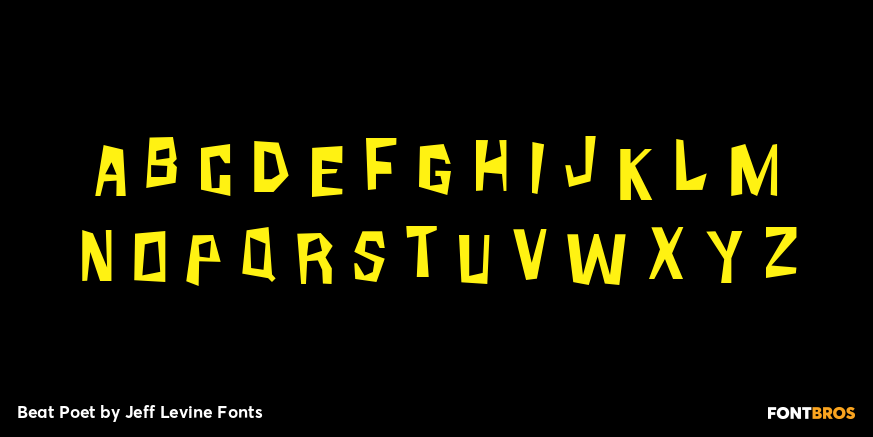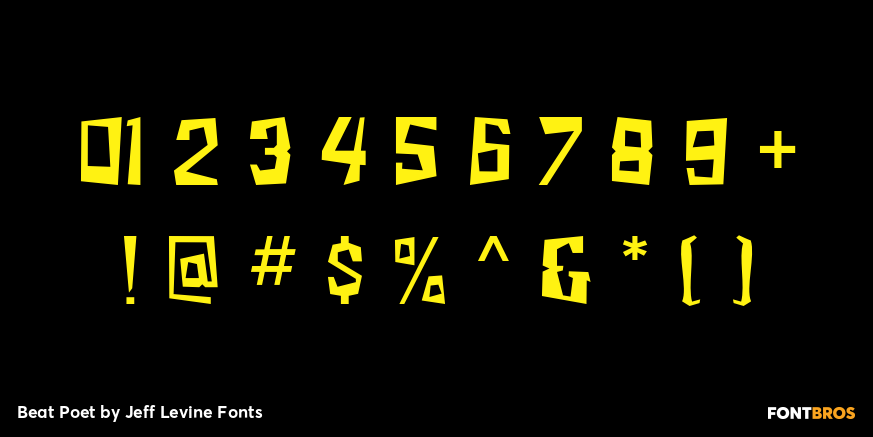
Beat Poet JNL is a throwback to the late 50s and early 60s when Beatniks hung out at coffee houses to listen to poetry and folk songs and live the Bohemian lifestyle of the Pre-Hippie generation.